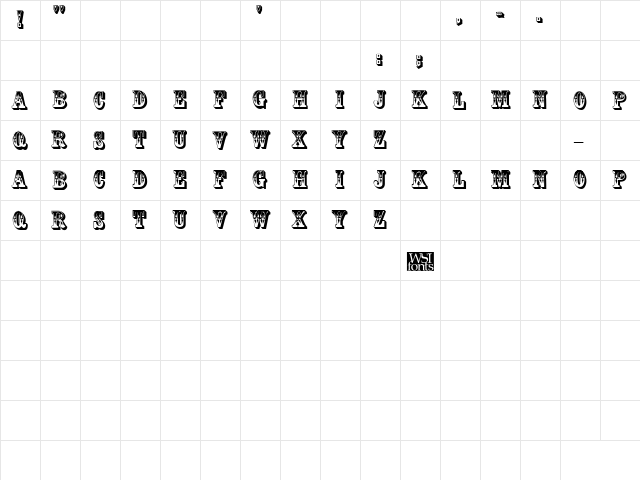
MackinawDisplayCaps Regular
Design Context for MackinawDisplayCaps Typeface
MackinawDisplayCaps is built around its visual character rather than neutral utility — its distinctive forms are designed to make an impression at display sizes.
Font Pairing: Pair with a clean neutral sans-serif for body copy to let MackinawDisplayCaps's character lead without overwhelming the composition.
Pro Tip: Treat MackinawDisplayCaps as the centrepiece of your typographic hierarchy. One strong heading set in a decorative face can carry an entire layout.